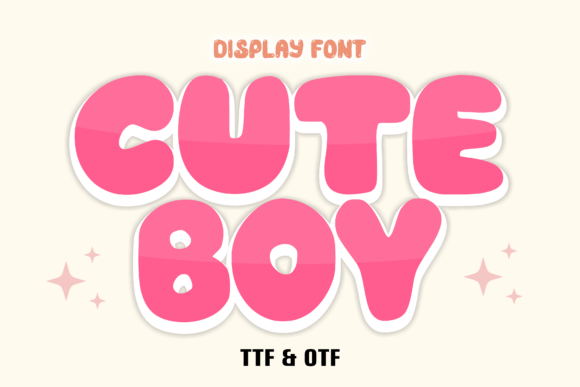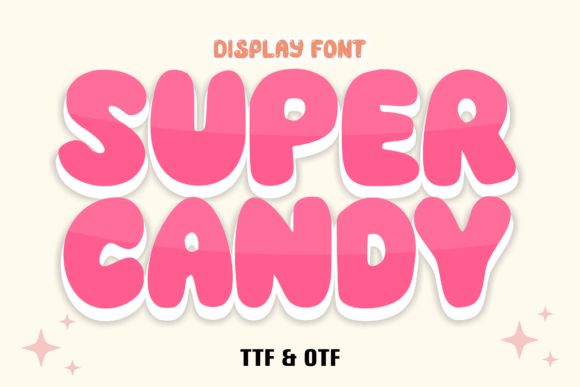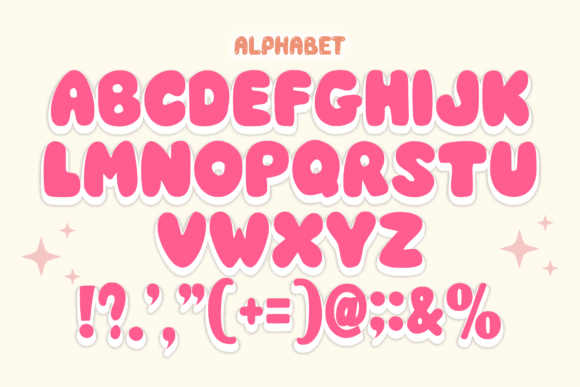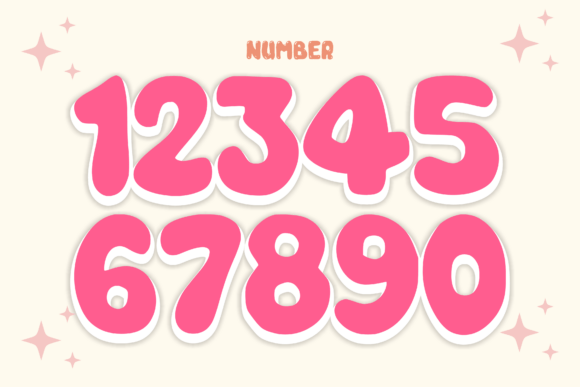
Cute Boy Font
About the Cute Boy Font
Introducing the Cute Boy Font, a beautifully crafted typeface designed to elevate your creative projects. Cute Boy is a modern and bold Bubble font. This font is ready to be used in any project. Perfect for logos, stickers, packaging designs, Cricut projects, news editors, comics, brand identities, t-shirt or apparel industry, posters, magazines, books, YouTube, Instagram, websites, or any other creative design project.
Cute Boy’s bold, playful nature makes it ideal for headlines, short text blocks on posters, and branding applications where a youthful, energetic feel is desired. It excels in packaging design for products targeting younger demographics and works well for social media graphics and short-form content. However, its bubbly forms are less suitable for body text or extended reading, and its informal style might clash with projects requiring sophistication or seriousness.
Pairing Cute Boy with a clean sans-serif like Montserrat for body copy provides a strong contrast and visual balance. For a more playful aesthetic, consider pairing it with a simple script font like Pacifico, though use this sparingly to maintain legibility. Avoid pairing it with overly ornate or geometric fonts, which would compete with its distinctive character.
Ultimately, Cute Boy projects a fun, friendly personality. Brands focused on children’s products, casual wear, or entertainment will find it particularly effective.
Cute Boy Font Usage Examples
Cute Boy Font Example